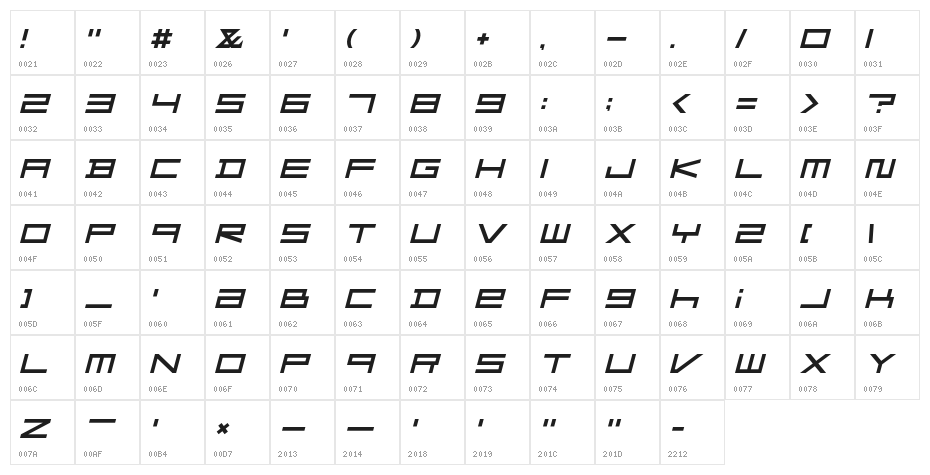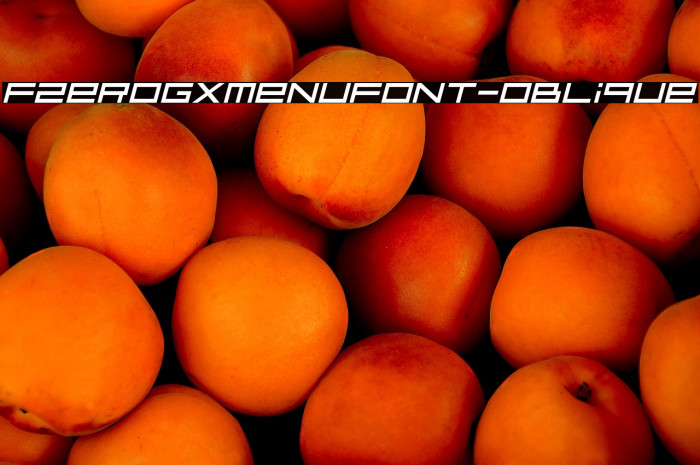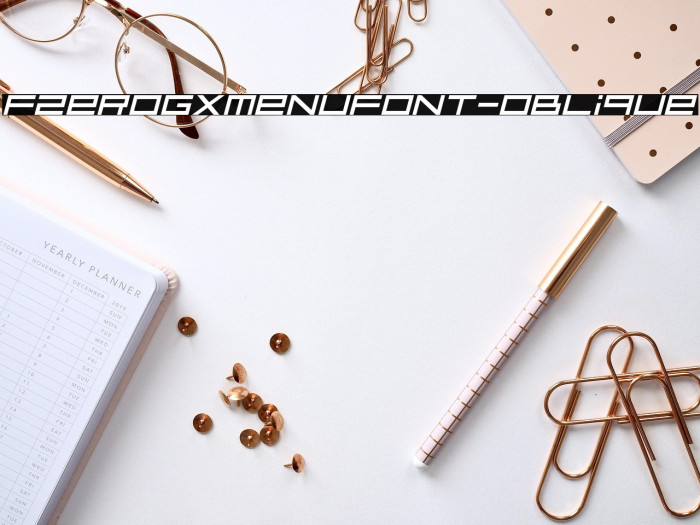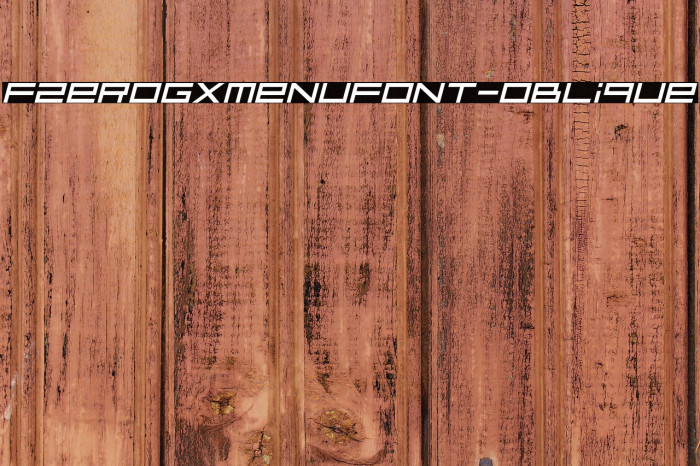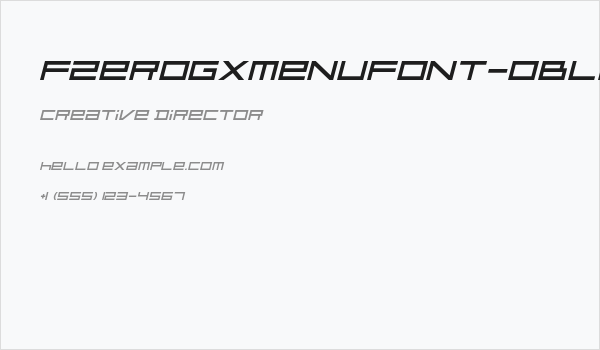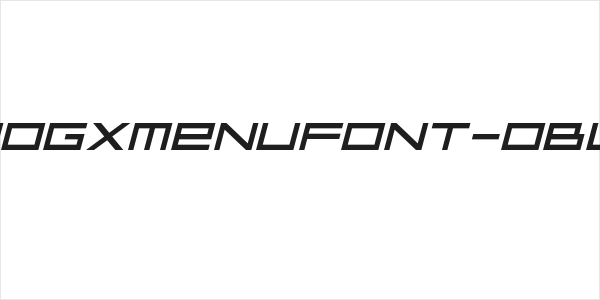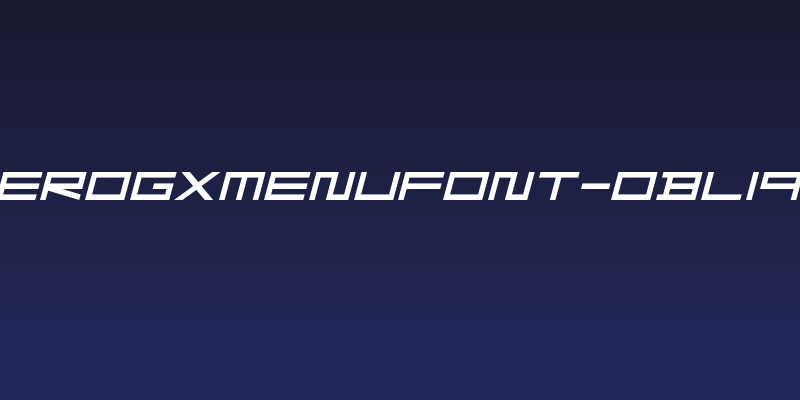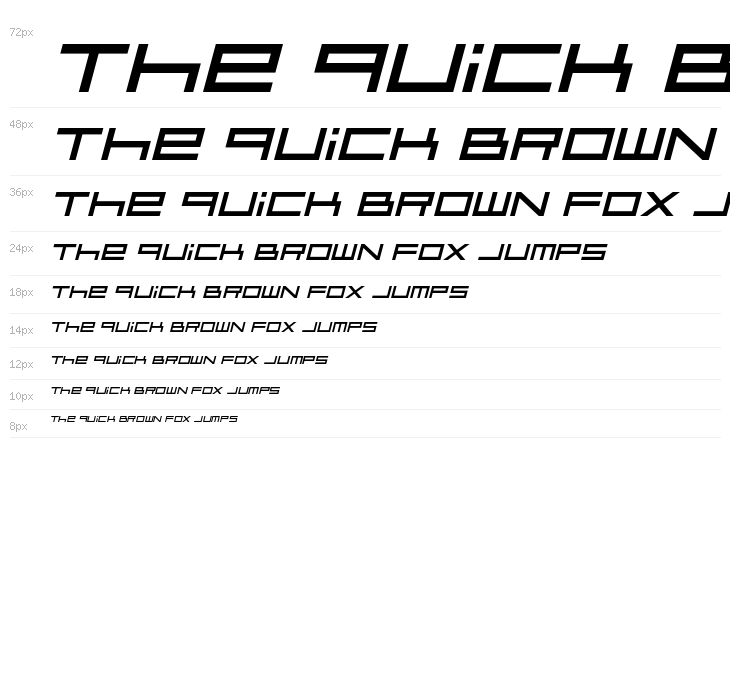
FZeroGXMenuFont-Oblique Font
FZeroGXMenuFont-Oblique Description
This font features a futuristic and angular design, characterized by its sharp edges and slanted orientation. The letters are uniformly styled with a consistent geometric structure, giving it a sleek and modern appearance. The uppercase and lowercase letters maintain a cohesive look, with the lowercase slightly smaller but retaining the same angular style. Numbers and special characters follow the same design principles, ensuring uniformity across all glyphs. The font's oblique nature adds a sense of motion and dynamism, making it suitable for projects that require a modern and energetic aesthetic.
| Proposed Projects | Ideal for video game interfaces, sci-fi movie posters, tech branding, and futuristic-themed designs. |